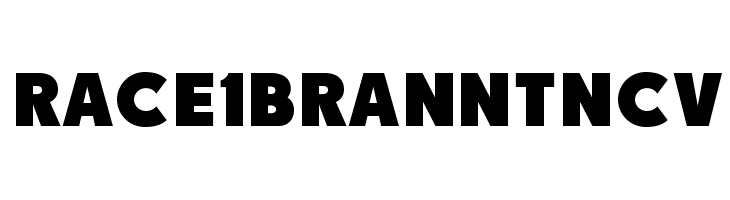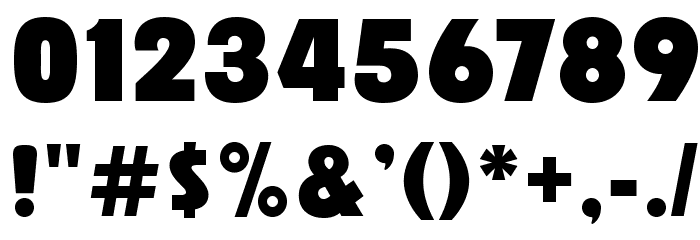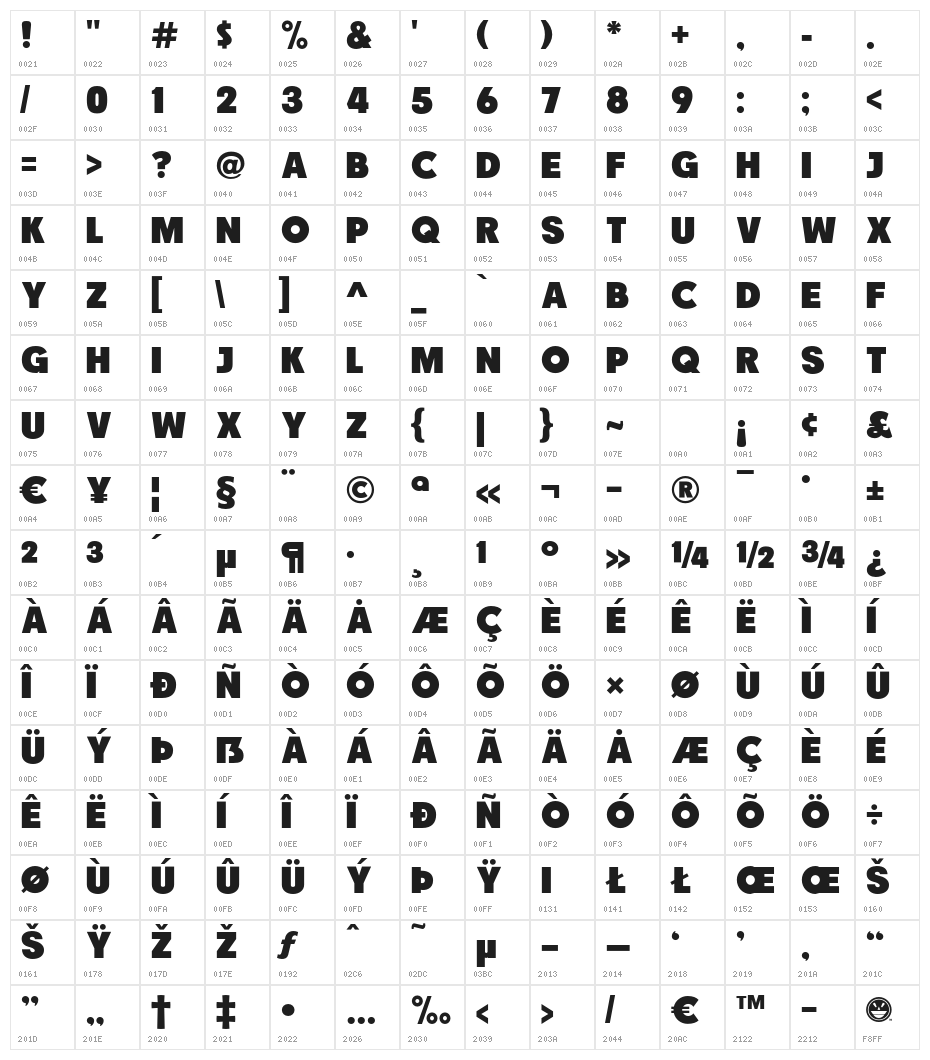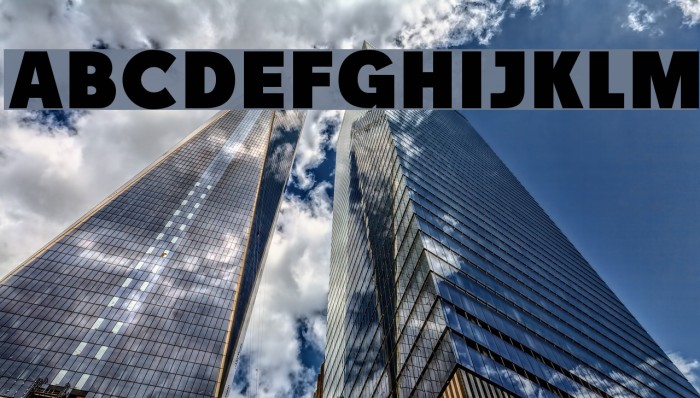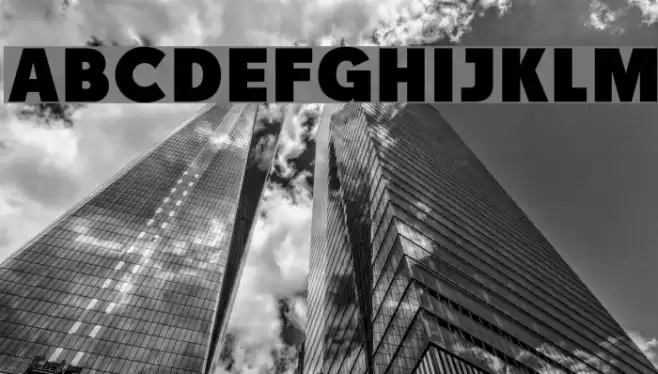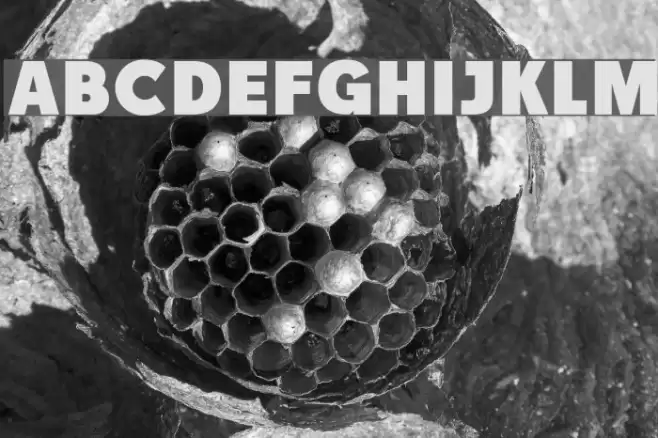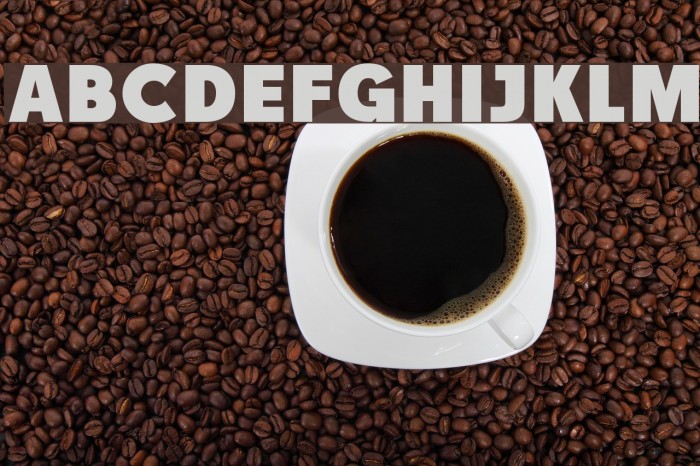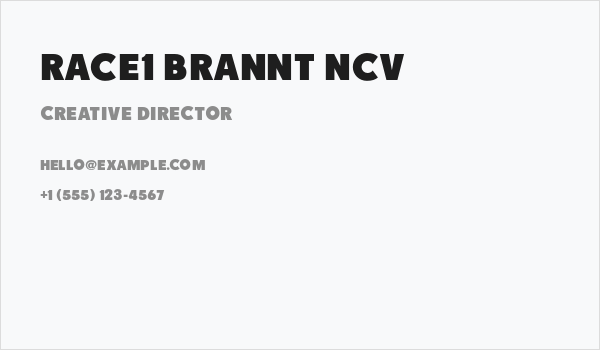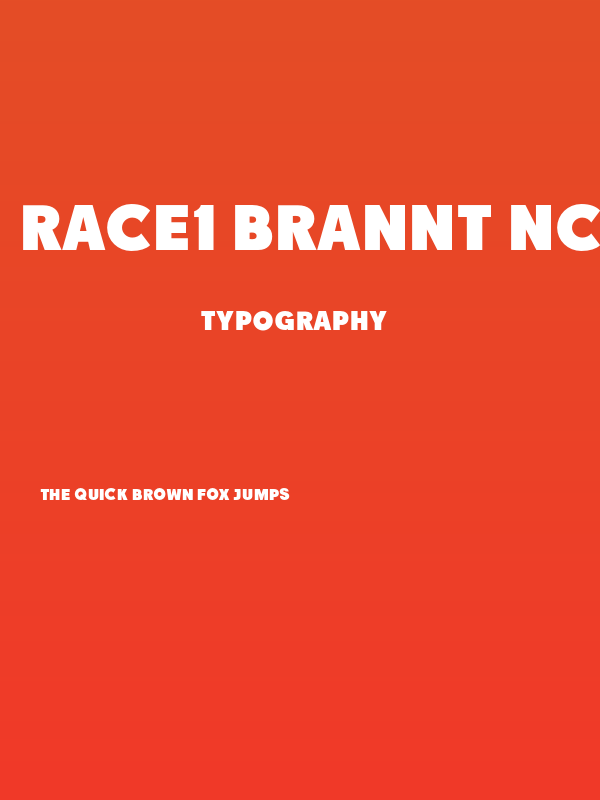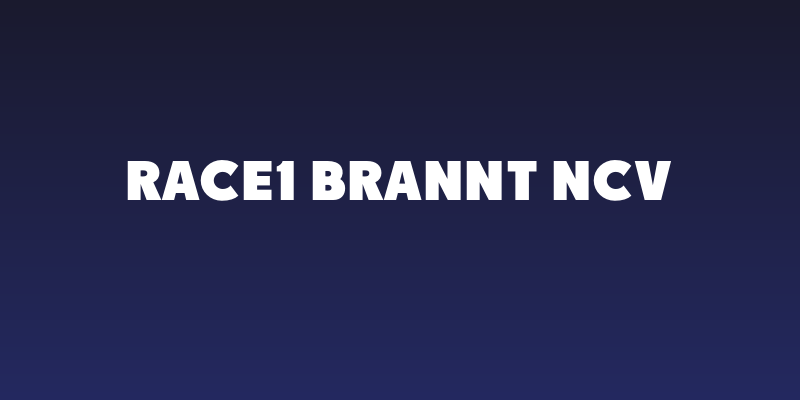
RACE1 Brannt NCV Font
RACE1 Brannt NCV Description
This font is characterized by its bold and impactful presence, featuring thick, uniform strokes that convey strength and assertiveness. The uppercase letters are particularly prominent, with a strong geometric structure that emphasizes clarity and readability. The numbers and special characters maintain this bold aesthetic, ensuring consistency across all elements. The font's design is straightforward, with minimal decorative elements, making it suitable for a variety of applications where a strong visual impact is desired.
Proposed ProjectsIdeal for branding, advertising, headlines, and poster design where a strong, assertive presence is needed.